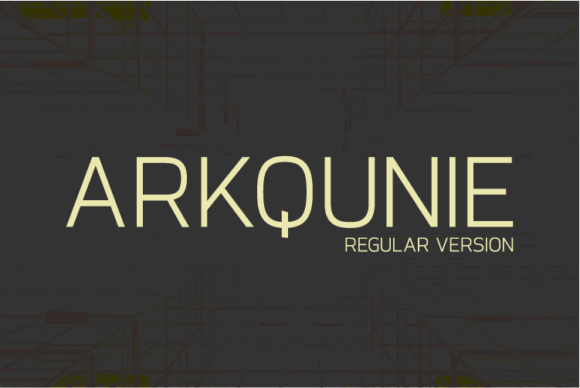
The Perfect Typography Solution for Designers
Imagine you’re brainstorming ideas for a new project, and you stumble upon the perfect font to bring your vision to life. For designers, finding that elusive font can be a game-changer. It’s a moment of clarity, where everything falls into place, and the design starts to take shape. This is what happens when you discover the Arkqunie Font, a versatile and geometric sans serif typeface designed to make your creative process easier.
With its flexibility and unique features, Arkqunie Font is perfect for a wide range of applications, from headlines and logos to business cards and magazines. Whether you’re a seasoned designer or just starting out, this font offers the perfect balance of style and functionality. Its adaptability makes it an invaluable asset for designers who want to create visually stunning and effective designs.
Arkqunie Font Key Features
- Unique Characteristics: This font features a unique blend of modern and vintage elements, with intricate details and subtle flair, making it perfect for designers seeking a distinctive look.
- Font Style: The font is available in regular, italic, bold, and bold italic styles, providing flexibility for designers to create a range of visual effects and moods.
Arkqunie Font Review
I recently had the chance to work with the Arkqunie Font, and I must say it’s a unique addition to any design project. ✨ Here are a few things that work well:
- Its quirky, modern aesthetic can add a lot of personality to a design. It’s perfect for brands that want to stand out from the crowd.
- The font is highly customizable, with a wide range of weights and styles to choose from.
- It’s relatively easy to read, even at smaller font sizes.
- The font may not be suitable for all types of projects. Its bold, eye-catching style can be overwhelming in certain contexts.
- Some characters may not be perfectly kerned, which can affect the overall readability of the text.
- The font family is relatively small, so you may need to rely on third-party resources for additional characters or symbols.
Overall, I’d say the Arkqunie Font is a solid choice for designers who want to add some visual interest to their projects. While it may not be perfect for every situation, it’s definitely worth considering for the right type of project.
Arkqunie Font: A Practical Application Guide
Tips for Getting the Most Out of Arkqunie Font
Arkqunie Font is suitable for various design applications, including: Branding and logo design, print materials, digital marketing, and web design. Use it for headings, titles, and paragraphs to create a unique and recognizable visual identity.